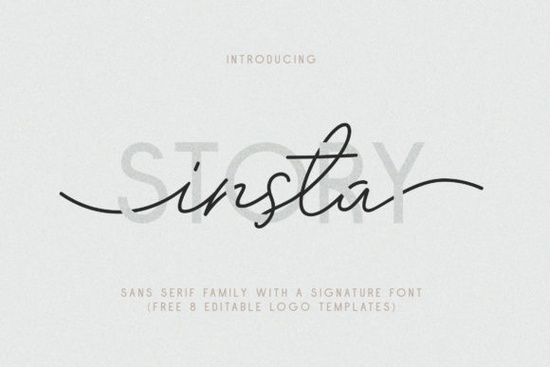
When it comes to adding a touch of elegance and versatility to your design projects, the Insta Story Duo Font is a fantastic choice. This font duo is designed to meet all your creative needs, whether you're working on logo designs, business cards, or social media graphics.
What Makes Insta Story Duo Font Stand Out?
The Insta Story Duo Font is not just another font; it's a comprehensive set of 10 sans serif font styles paired with a signature font that mimics hand-scratched calligraphy. This combination allows for a wide range of design possibilities, from sleek and modern to more organic and personal looks.
Key Features of Insta Story Duo Font
- Variety of Styles: The package includes 10 different styles, such as Thin, Regular, Bold, and Outline, each available in both TTF and OTF formats.
- Signature Font: A unique signature font with titling and swash options, perfect for adding a personal touch to your designs.
- Multilingual Support: The font supports a wide range of languages, including special characters, allowing you to reach a global audience.
How Can You Use Insta Story Duo Font?
The Insta Story Duo Font is incredibly versatile and can be used in a variety of design projects. Here are some ideas:
- Logo Design: Create unique and memorable logos for your brand or clients.
- Business Cards: Add a professional and stylish touch to your business cards.
- Greeting Cards: Design beautiful and personalized greeting cards for any occasion.
- Magazines and Newspapers: Enhance the readability and visual appeal of your publications.
- Social Media Graphics: Make your social media posts stand out with eye-catching typography.
- Watermarks: Protect your images and documents with elegant watermarks.
Why Choose Insta Story Duo Font?
One of the key advantages of the Insta Story Duo Font is its versatility. Whether you're a designer, crafter, print-on-demand seller, or small business owner, this font duo offers a wide range of styles to suit your specific needs. The inclusion of 8 editable logo templates also saves you time and effort, allowing you to focus on other aspects of your project.
Tips for Using Insta Story Duo Font Effectively
To get the most out of the Insta Story Duo Font, consider these tips:
- Experiment with Combinations: Try mixing and matching different styles to find the perfect look for your project.
- Use the Signature Font Sparingly: The signature font adds a unique touch, but use it sparingly to avoid overwhelming your design.
- Test Different Sizes and Spacings: Play around with font sizes and letter spacing to achieve the desired effect.
- Combine with Other Fonts: For a more dynamic look, consider pairing the Insta Story Duo Font with other fonts like Nura.
Final Thoughts
The Insta Story Duo Font is a valuable addition to any designer's toolkit. Its versatility, combined with the included editable logo templates, makes it a go-to choice for a wide range of design projects. Whether you're creating a new logo, designing a business card, or enhancing your social media presence, this font duo has you covered.